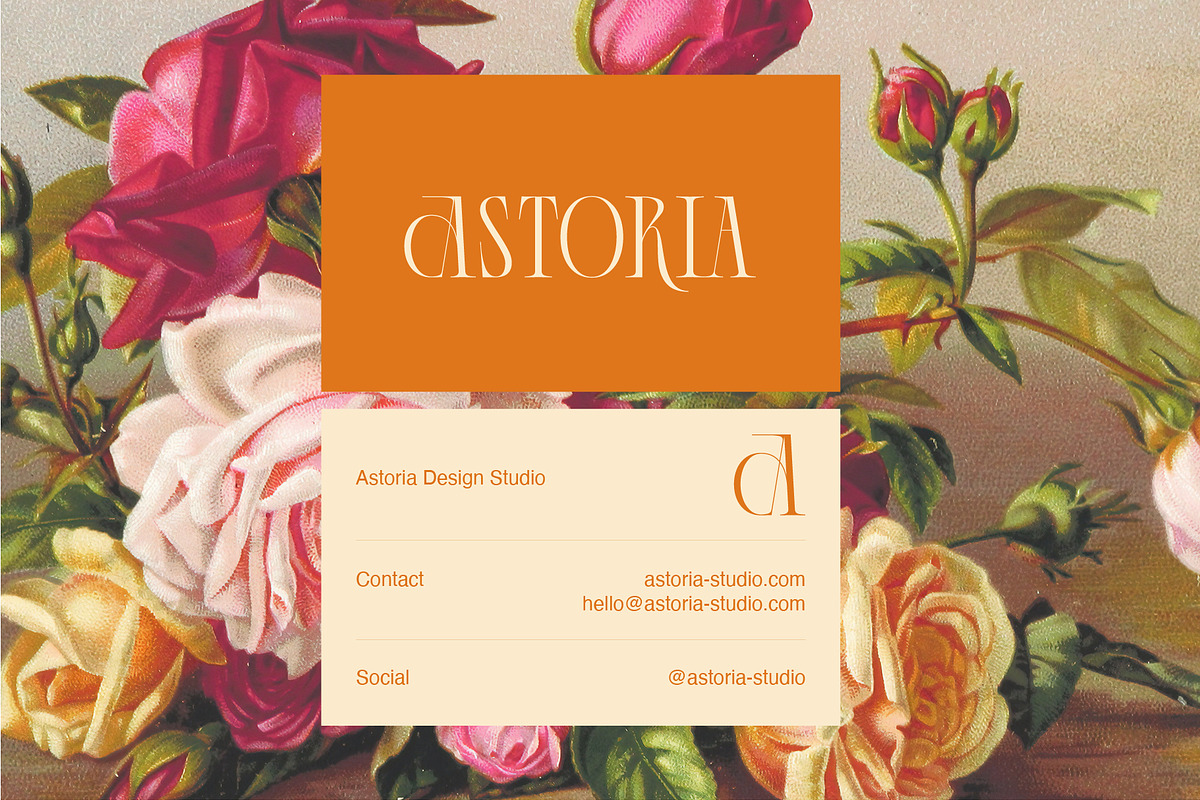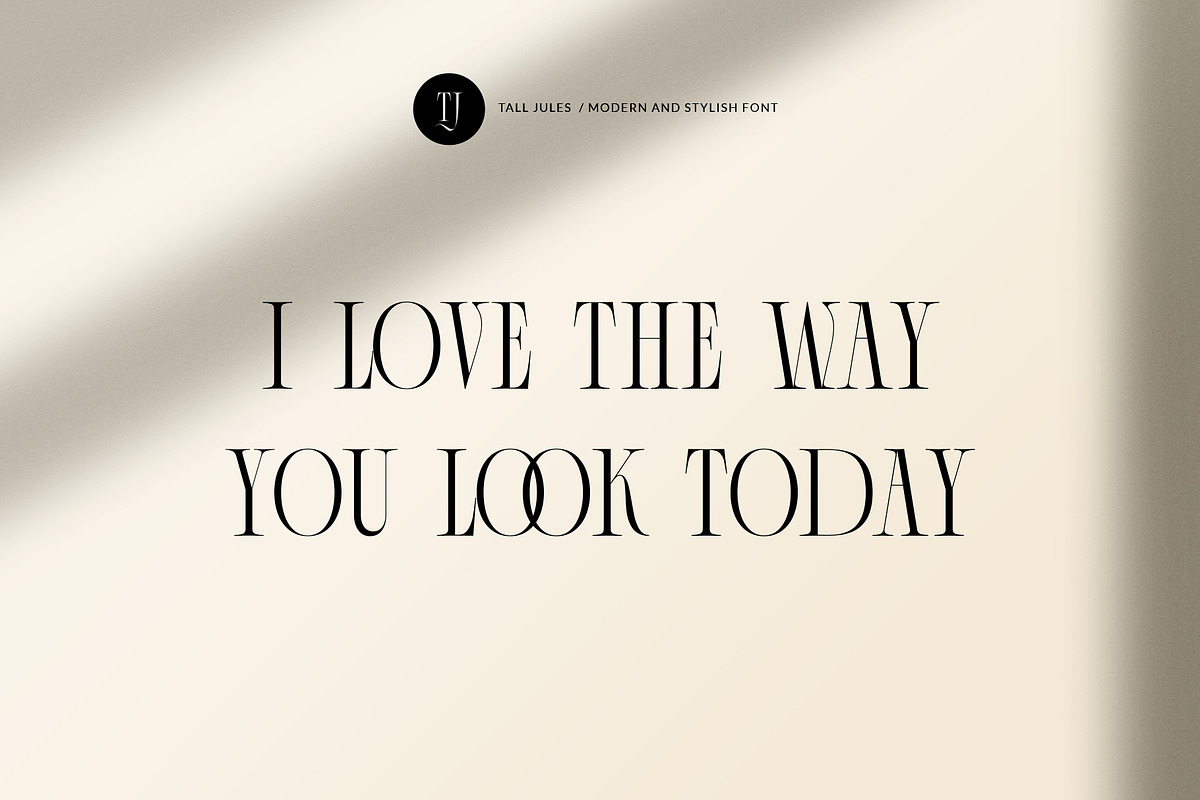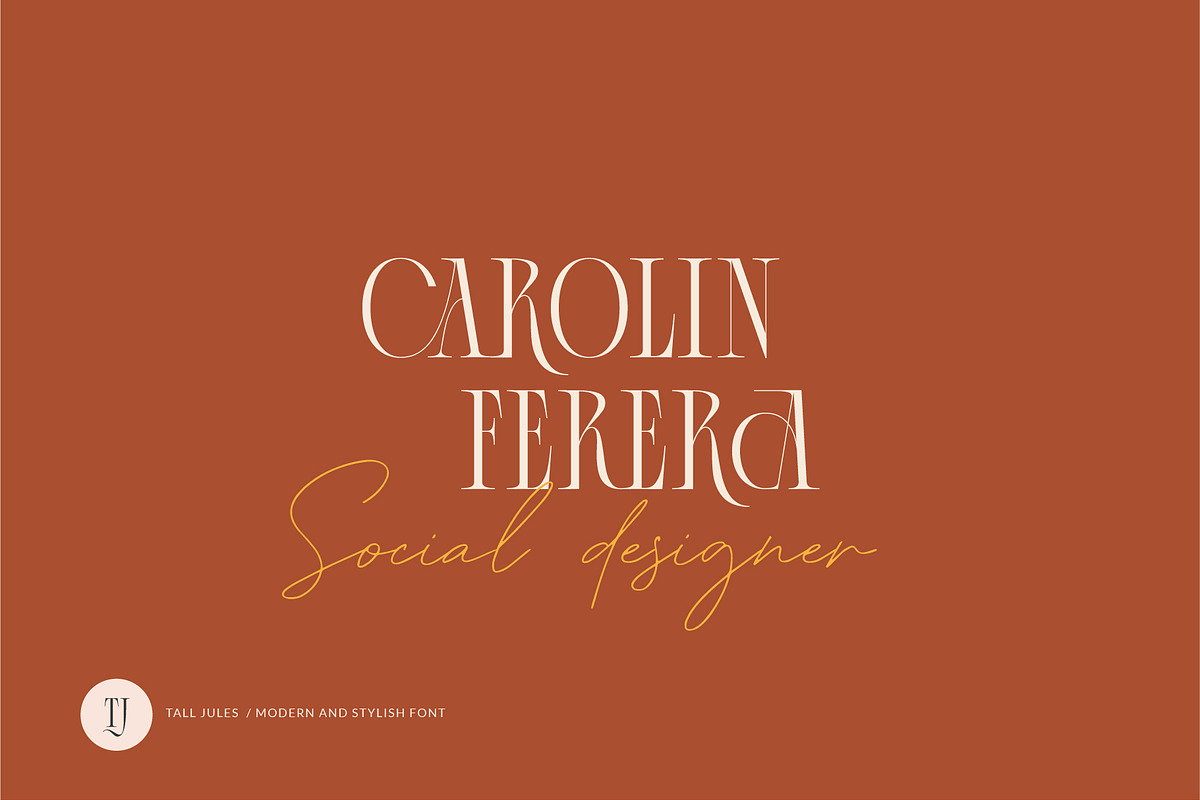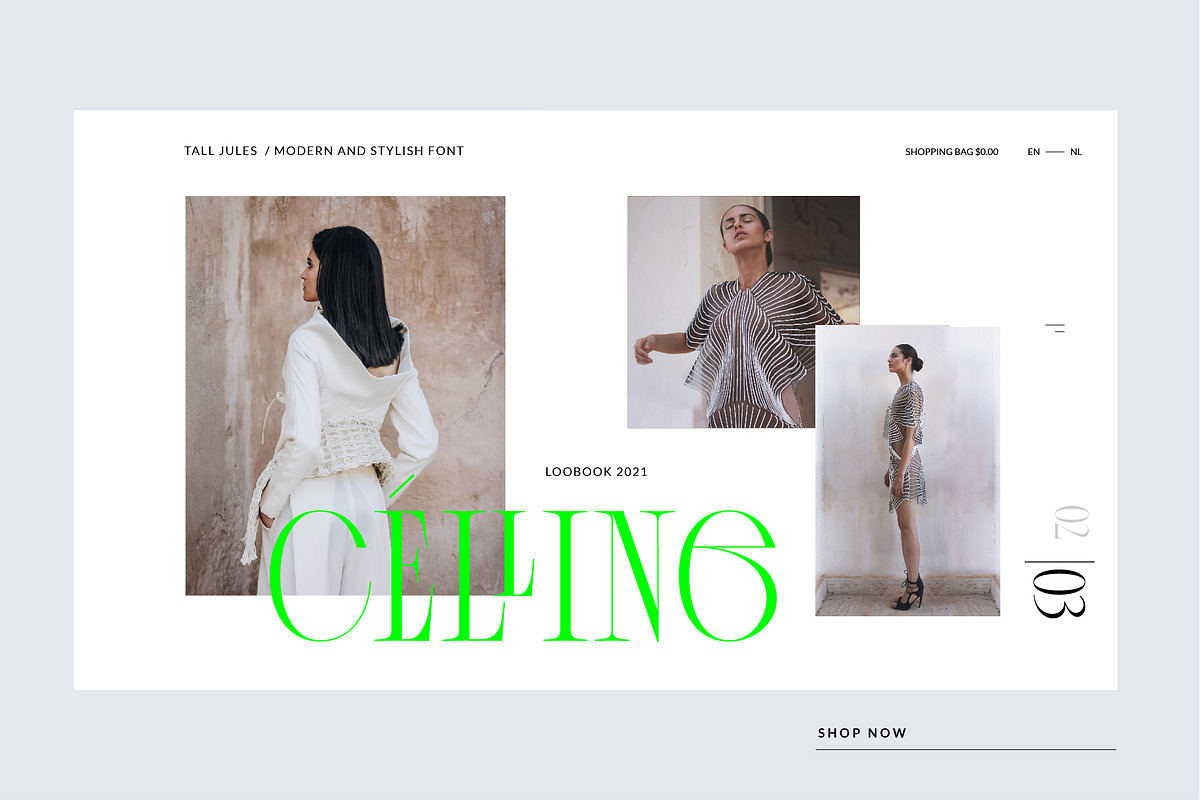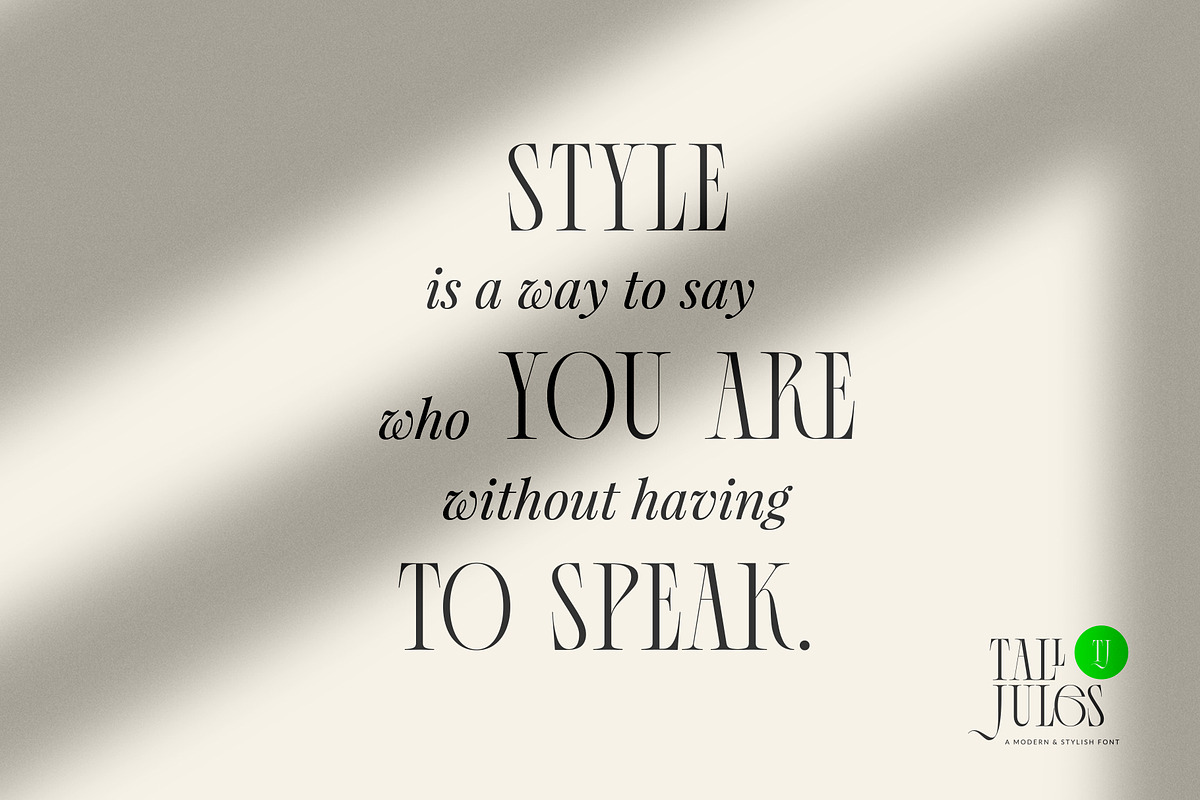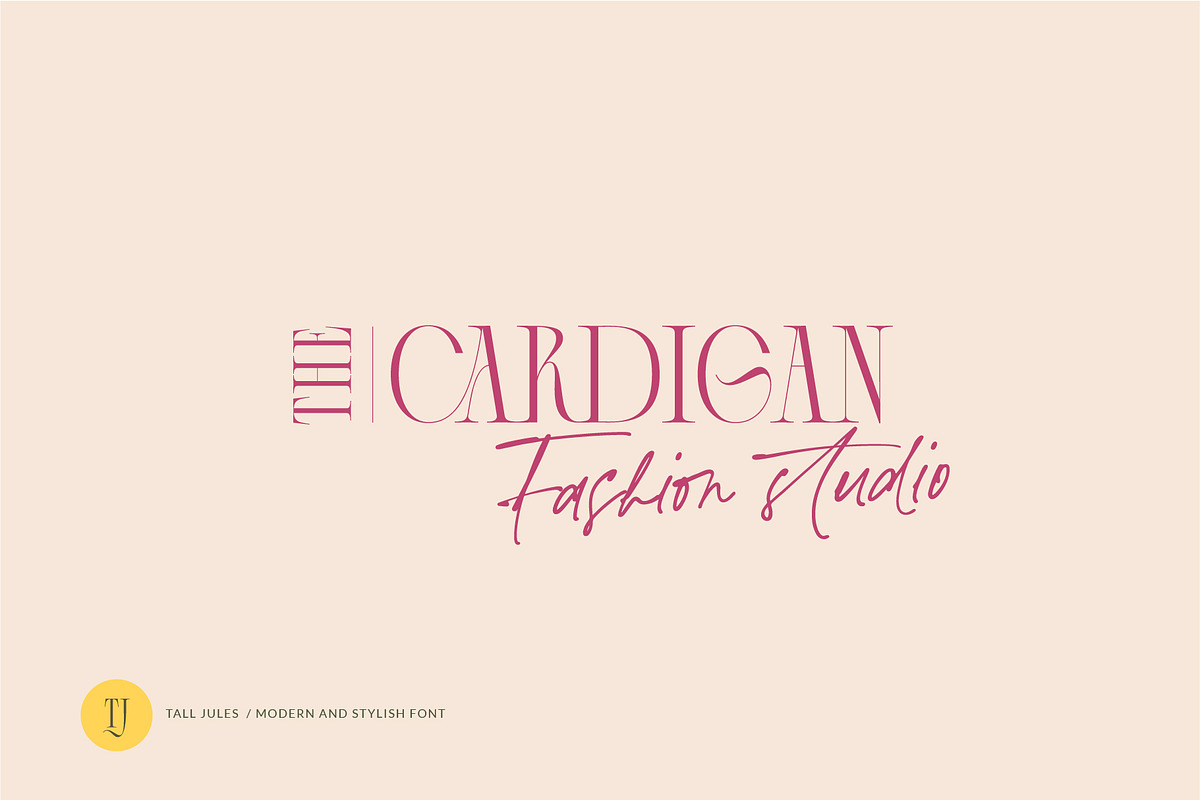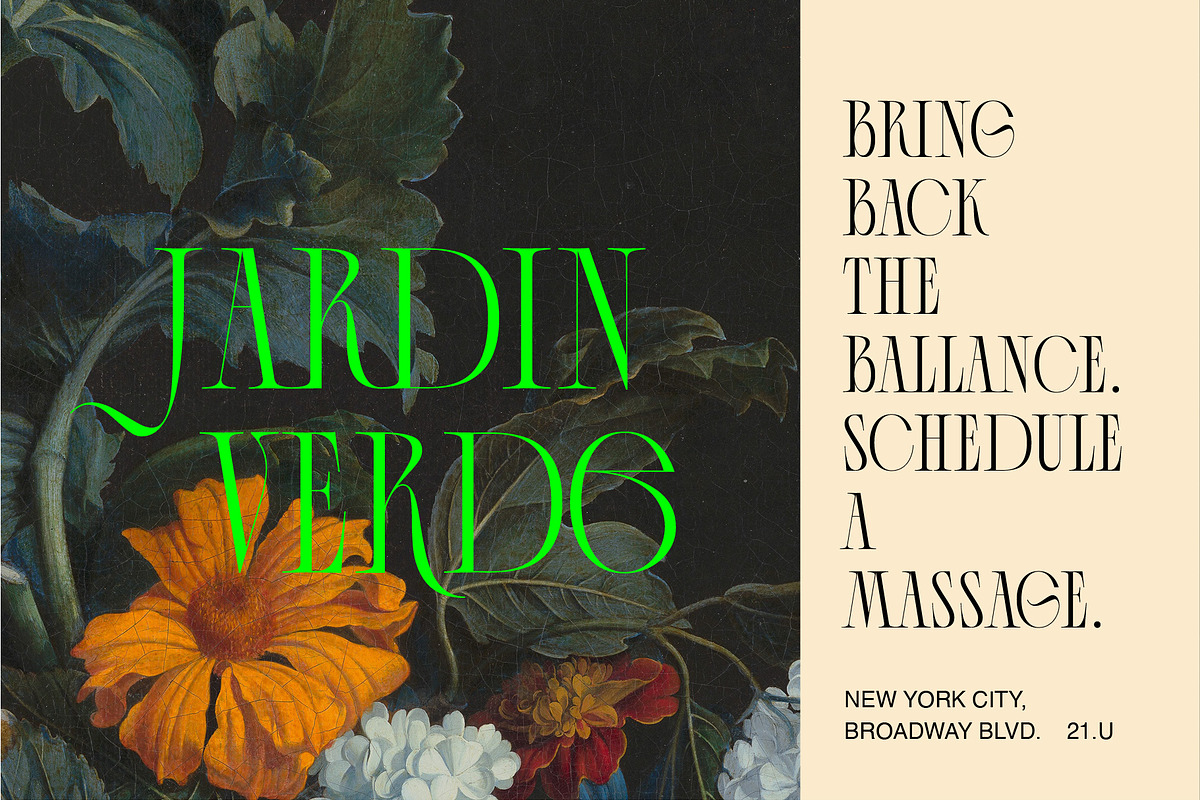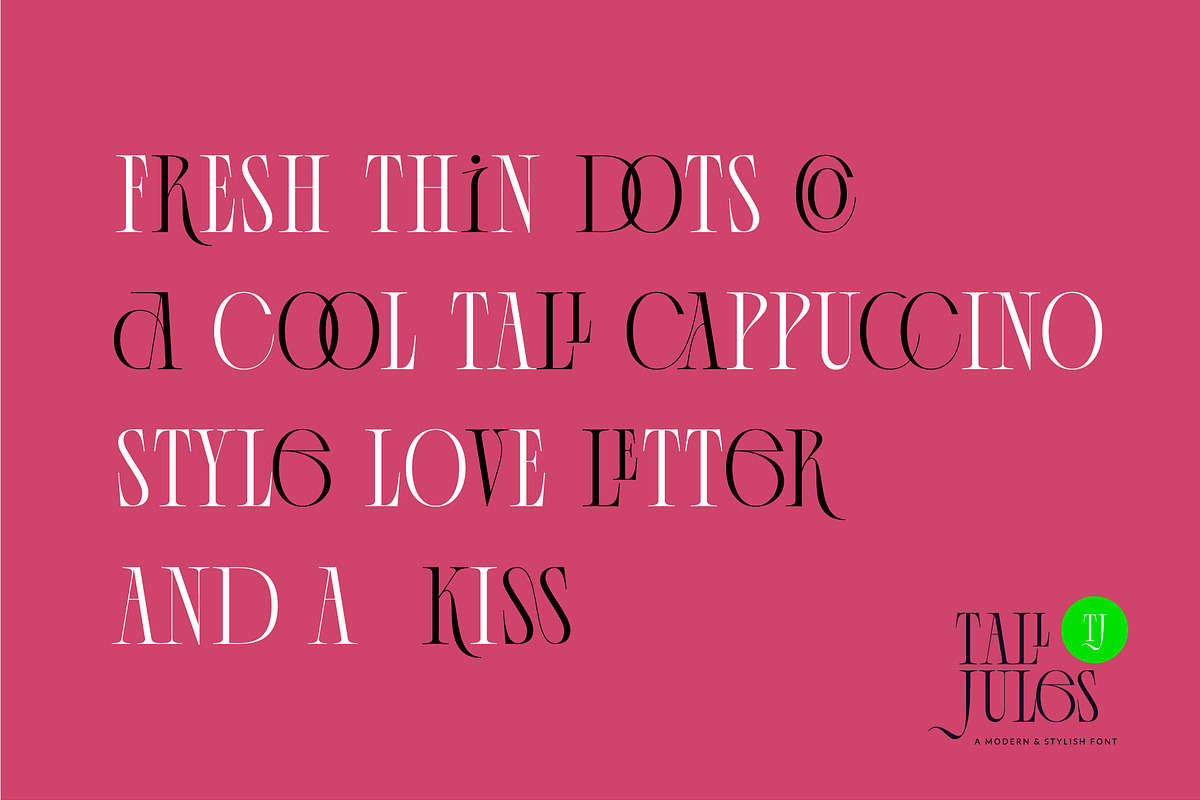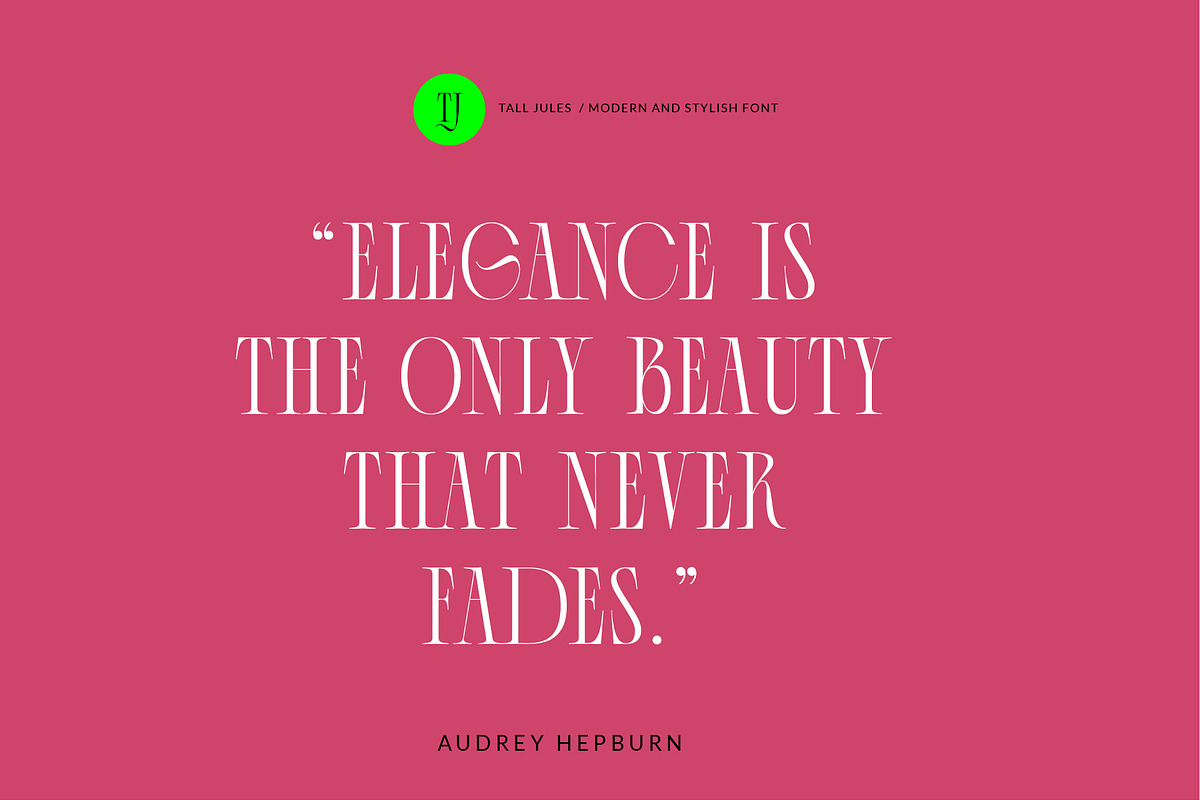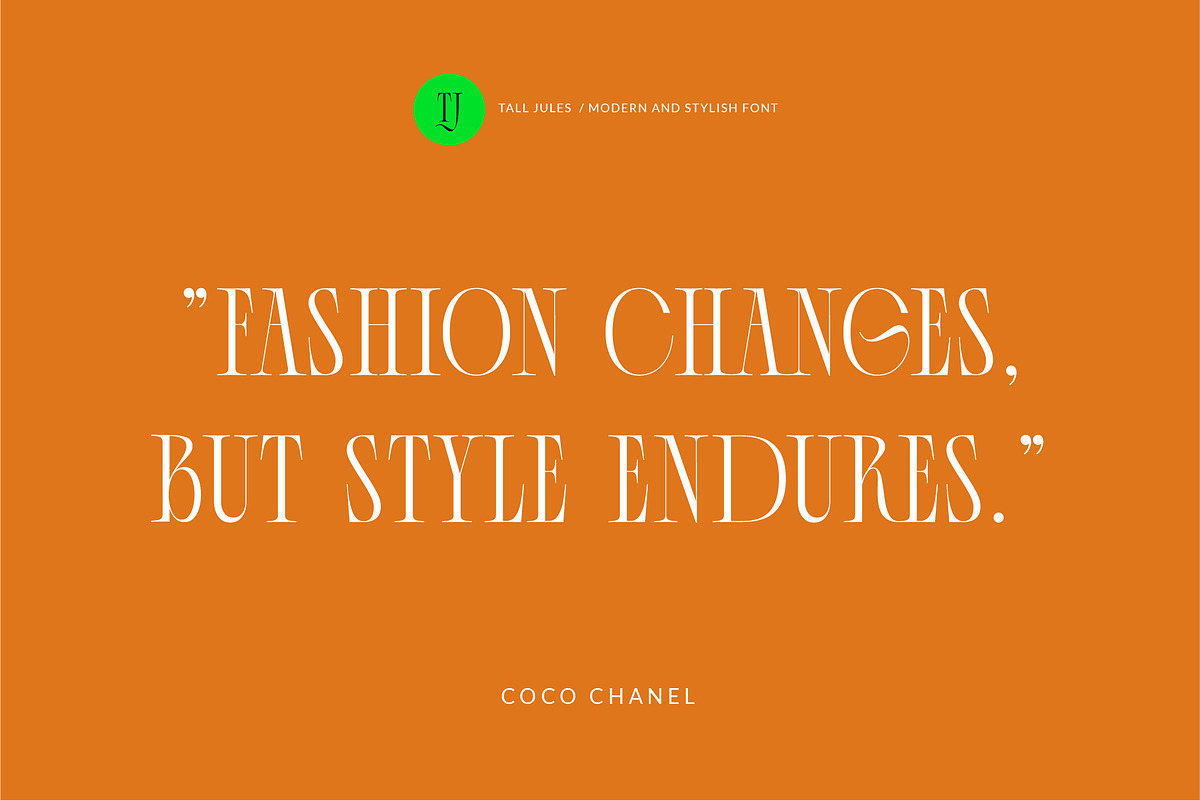
Tall Jules Modern and Stylish Font
Tall Jules is a modern and stylish serif font that has its inspiration from the old and deco fonts.
All the round letter are wider than the rest of them which makes the font to stand out. I also added alternates for the most interesting letters A, E, I, R, K and ligatures CA, CC, CO, LE, LL, OC, OO, SS to spice everything up. The font comes with all uppercase letters, 5 alternates, 8 ligatures, numbers, punctuation and diacritics for other languages.
Use Tall Jules to create contrasting texts, headlines, logos or simply use it in your designs.